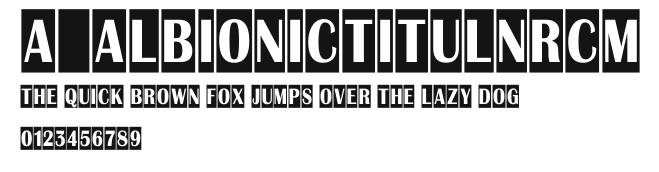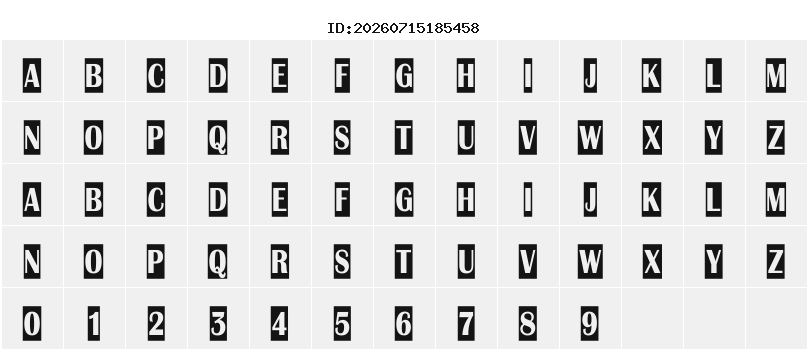
a_AlbionicTitulNrCm Preview
• Font Name: a_AlbionicTitulNrCm
• Font ID: a_AlbionicTitulNrCm
• Full Font Name: a_AlbionicTitulNrCm
• Version: Vers. 01.02
• PostScript Name: AAlbionicTitulNrCm
• Character Count: 193
About a_AlbionicTitulNrCm.ttf
a_AlbionicTitulNrCm.ttf is a modern, elegant sans-serif font designed for ultimate readability and visual harmony. Perfect for branding, headlines, web design, and print materials.